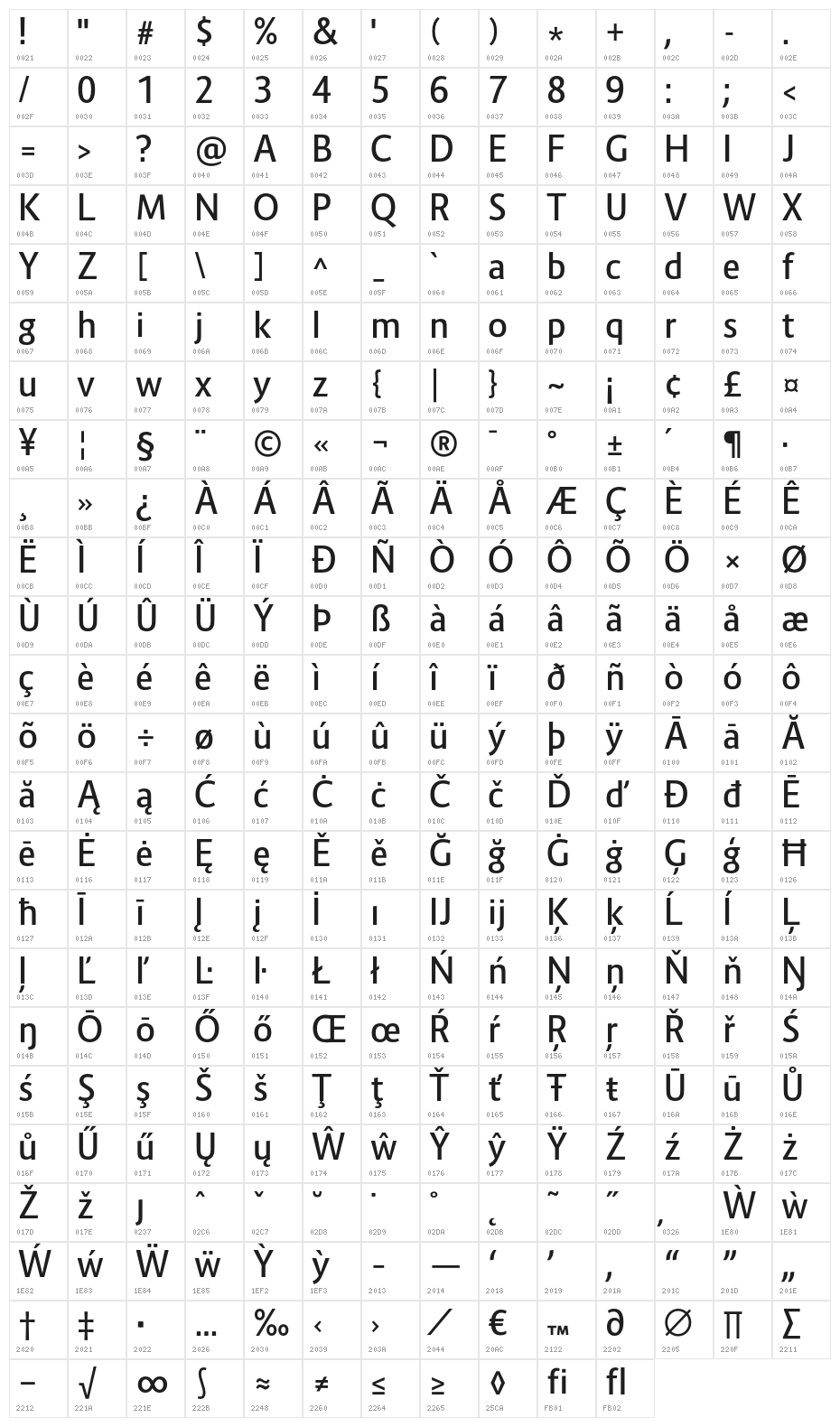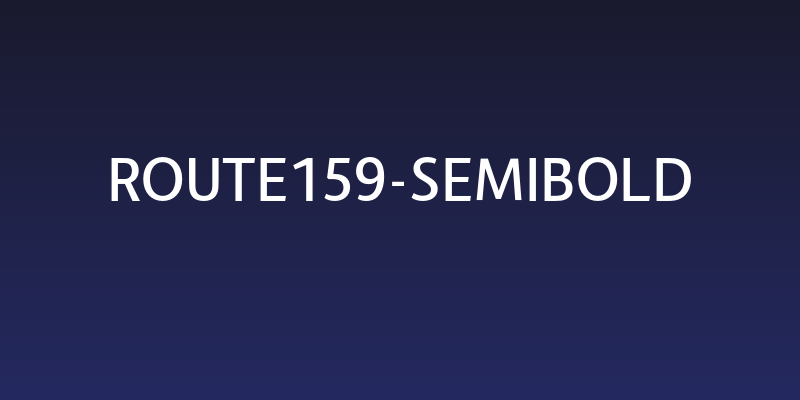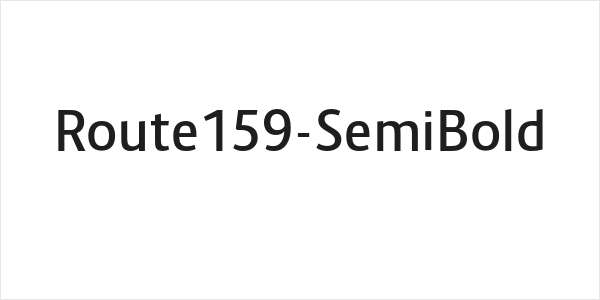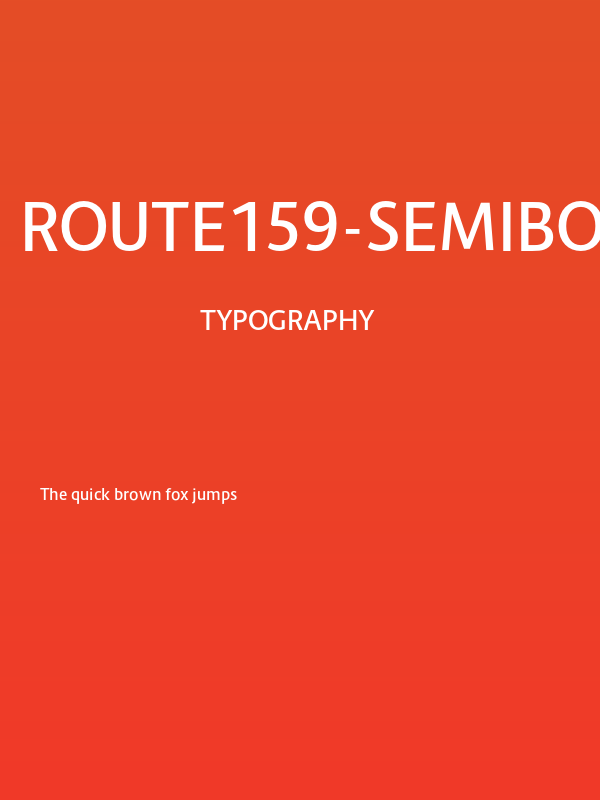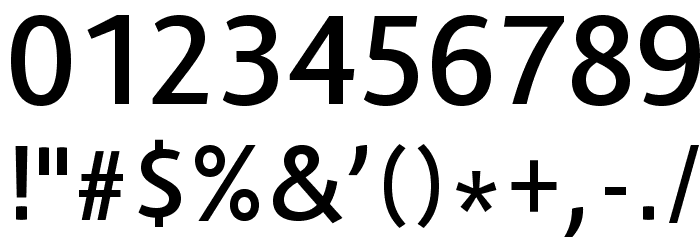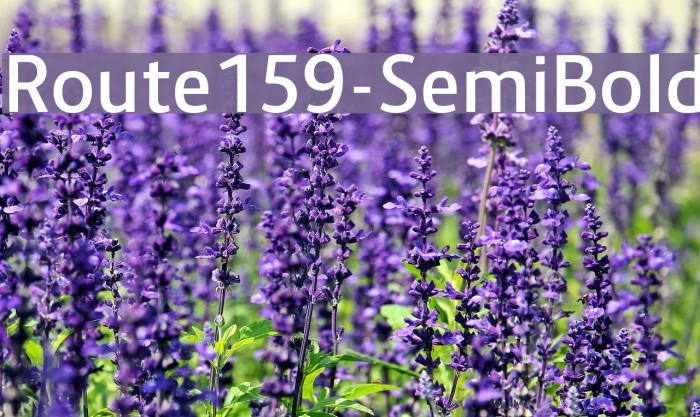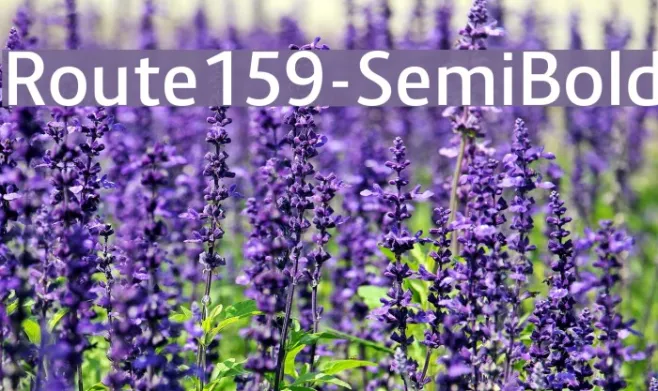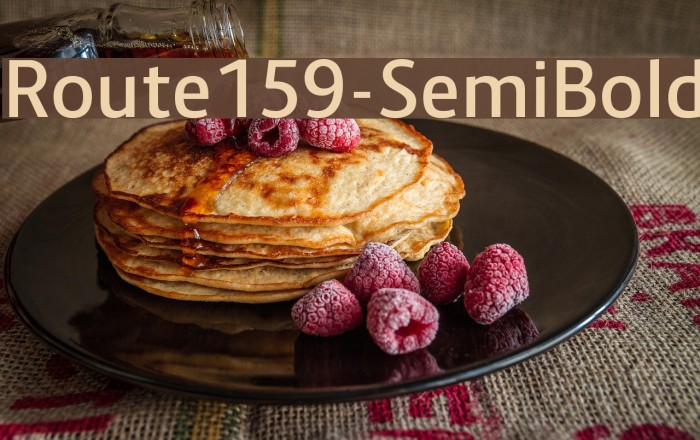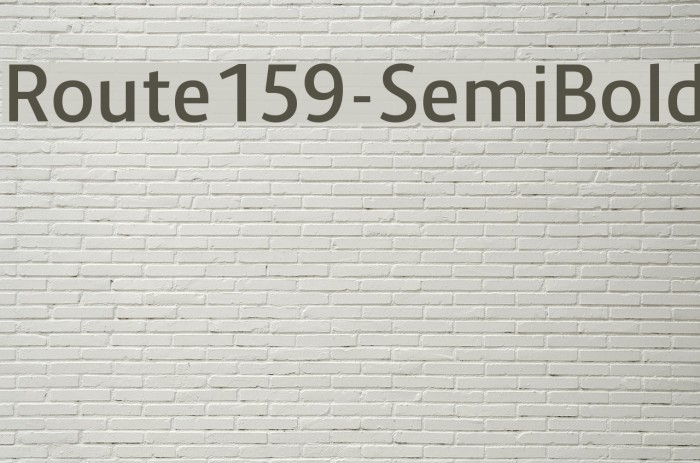
Route159-SemiBold Font
Route159-SemiBold Description
This font features a clean and modern sans-serif design with a semi-bold weight, offering a balanced and professional appearance. The characters are well-proportioned with a consistent stroke width, providing excellent readability. The uppercase letters are slightly taller than the lowercase, which are rounded and smooth, contributing to a friendly yet formal look. The numerals are clear and distinct, making them suitable for various applications. Special characters are well-integrated, maintaining the overall aesthetic of the typeface.